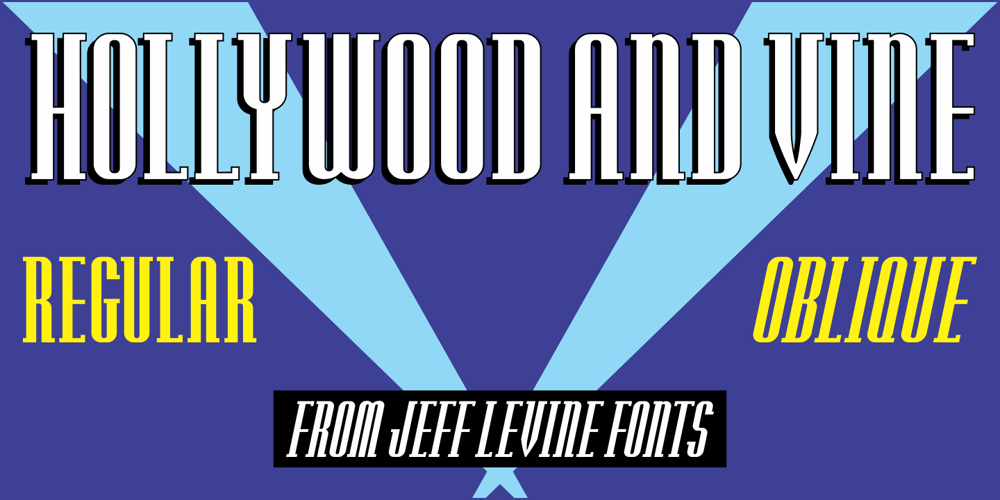
Hollywood and Vine JNL Font Family was designed by Jeff Levine and published by Jeff Levine. Hollywood and Vine JNL contains 2 styles and family package options. A condensed type design with Art Deco influences was used for titles within the February, 1938 issue of Modern Screen Magazine. The digital version is named for the famous “Tinsel Town” street intersection. Hollywood and Vine JNL is available in both regular and oblique versions.